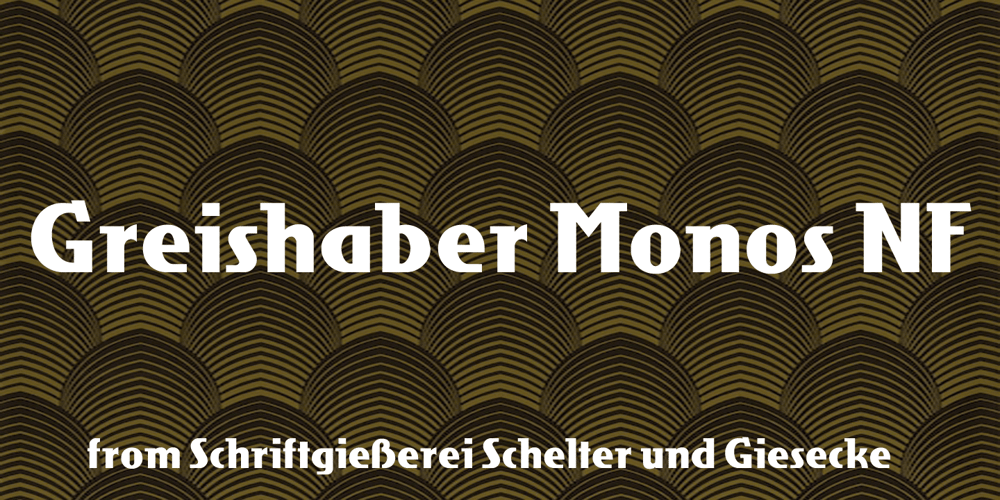
Grieshaber Monos NF
Grieshaber Monos NF font
Grieshaber Monos NF Font Family was designed by Nick Curtis and published by Nick’s Fonts. Grieshaber Monos NF contains 1 styles and family package options. The name says it all: here’s a faithful revival of a Schelter und Geiseck release from 1911, designed by Moritz Greishaber and originally called Monos. Although it predates the Art Deco era, it has a Deco vibe. Both versions of this font support the Latin 1252, Central European 1250, Turkish 1254 and Baltic 1257 codepages.